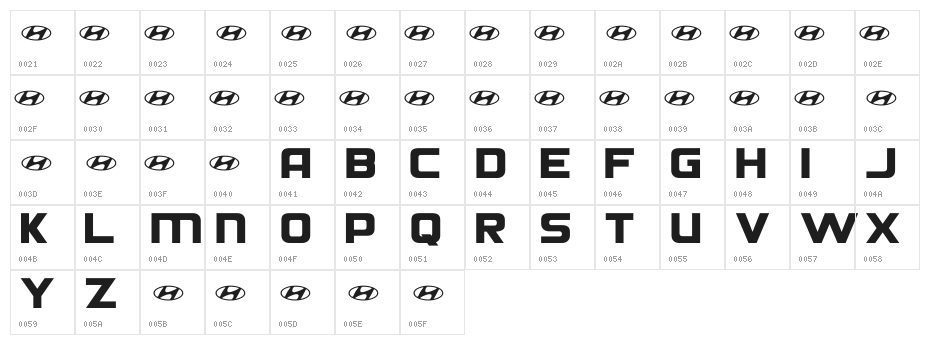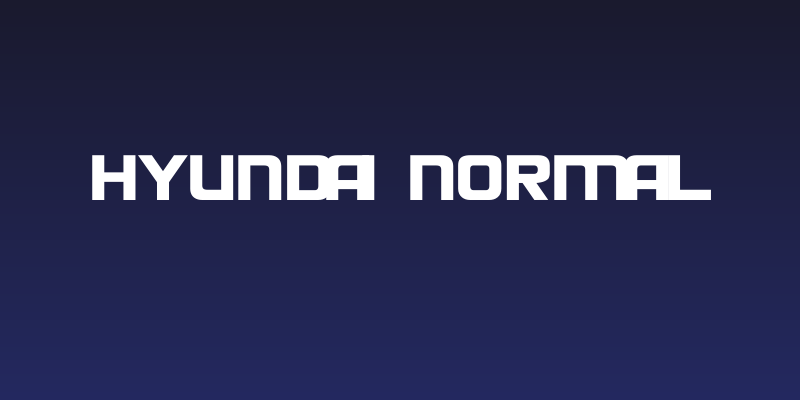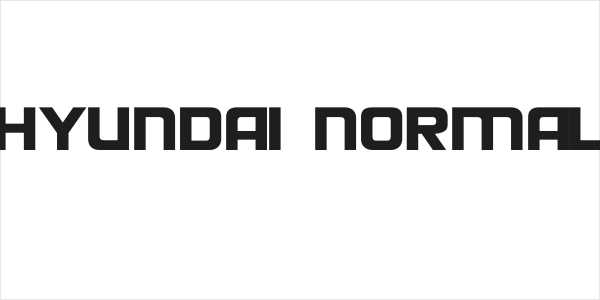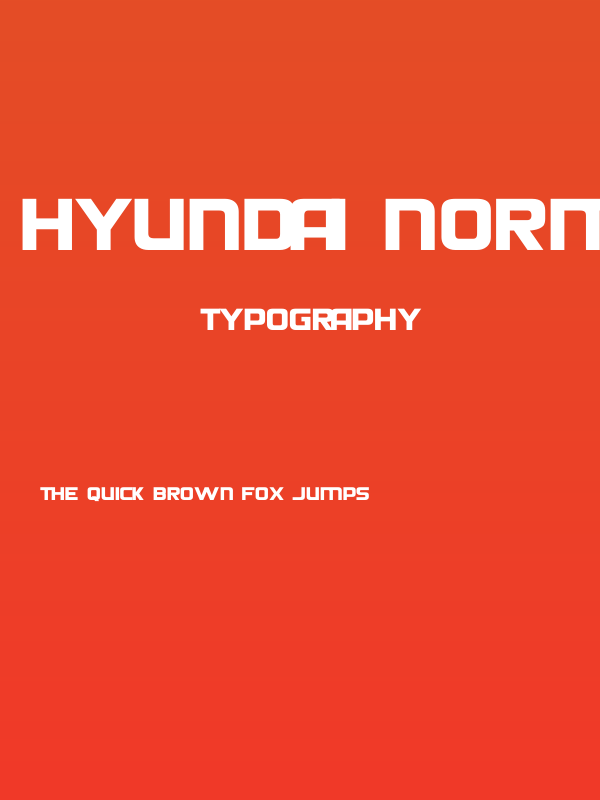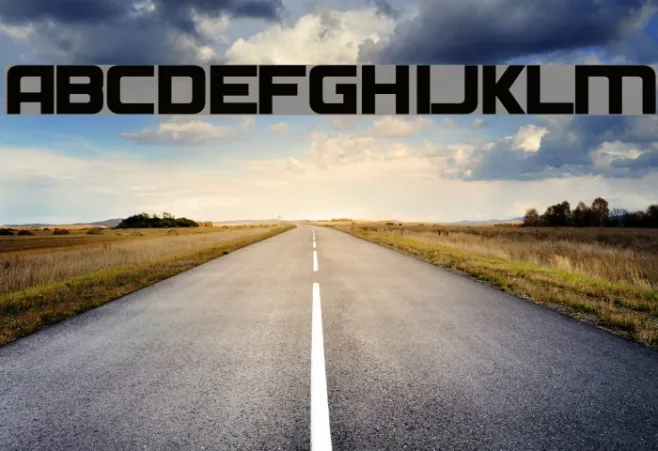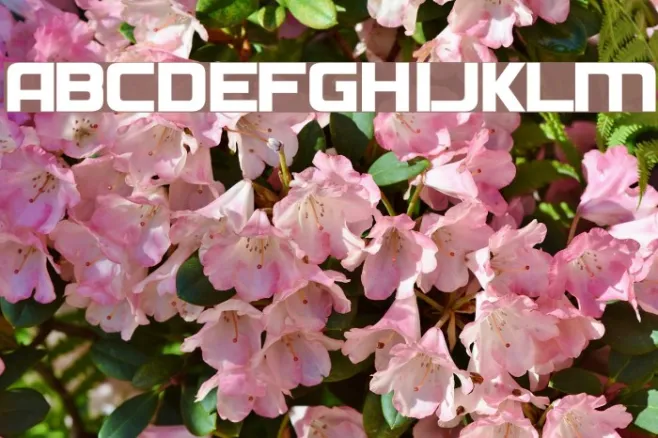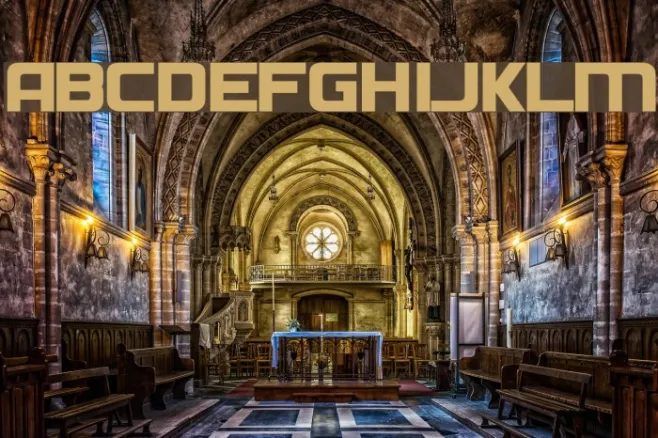
Hyundai Normal Font
Hyundai Normal Description
This font features a bold and modern design with a strong geometric structure. The characters are crafted with a block-like appearance, giving them a robust and sturdy feel. The uppercase letters are uniform in height, with consistent stroke widths that convey a sense of balance and stability. The font's style is reminiscent of industrial and technological themes, making it suitable for contemporary branding and design projects. The clean lines and sharp angles contribute to its modern aesthetic, while the overall design maintains a sense of clarity and legibility.
| Use Case | Logos, Headlines |
| Proposed Projects | Ideal for branding, logos, signage, and technology-related designs. |